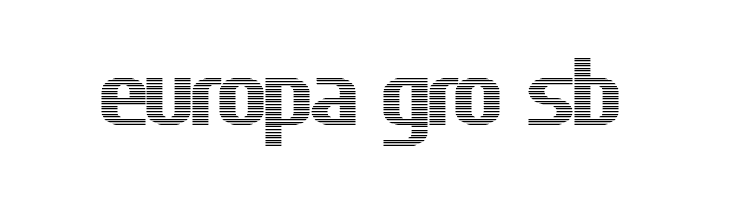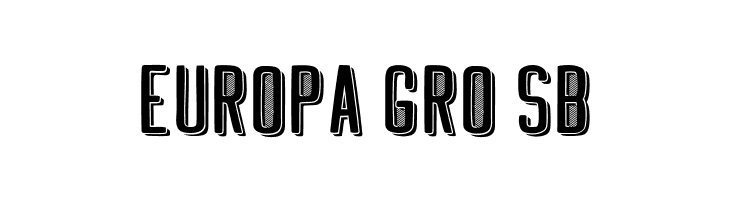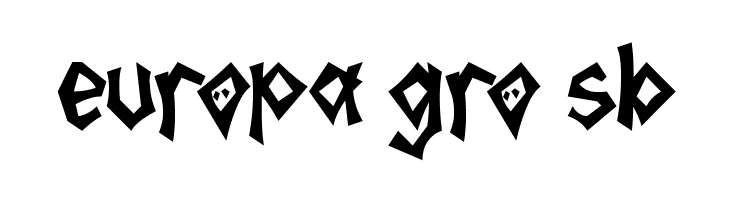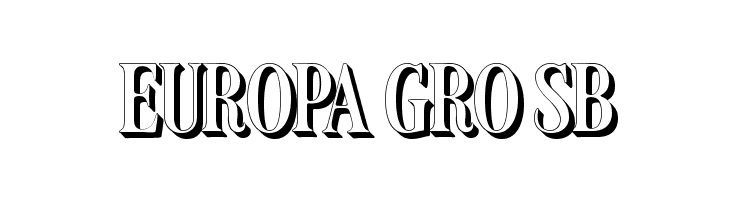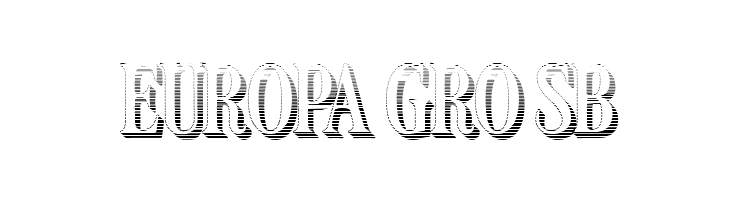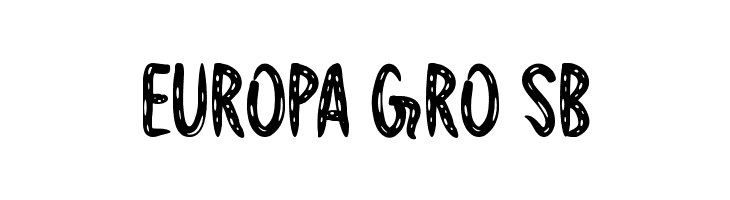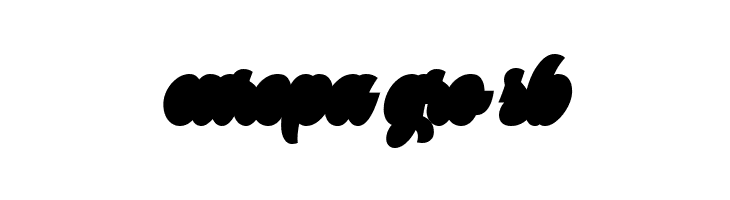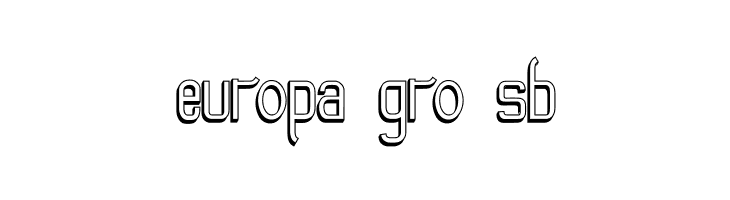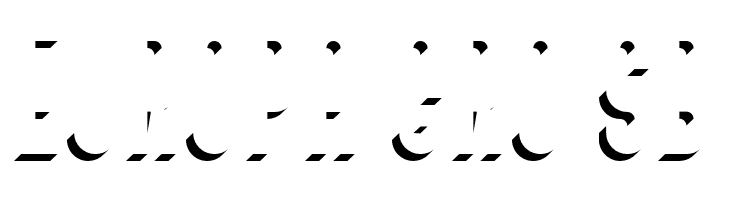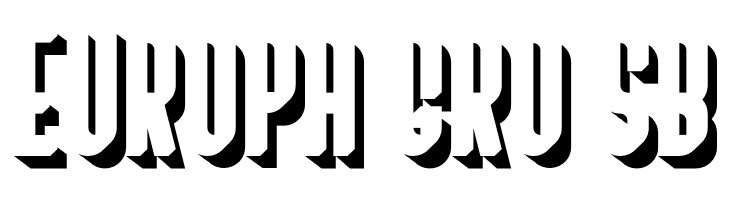
A bold, modern font with a shadow effect created by horizontal lines.
A bold, blocky font with a shadow line effect for a 3D appearance.
A bold, angular font with a shadow effect for dramatic visual impact.
A bold serif font with a 3D shadow effect, perfect for impactful headlines.
A bold serif font with a shadow gradient effect for a 3D look.
A playful, bold, hand-drawn font with a shadow effect.
A bold, shadowed outline font with a dynamic and playful style.
A modern, shadowed font with geometric outlines and a three-dimensional effect.
A bold, shadowed font with a modern and vintage blend.
Bold font with a striking drop shadow effect, ideal for impactful headlines.